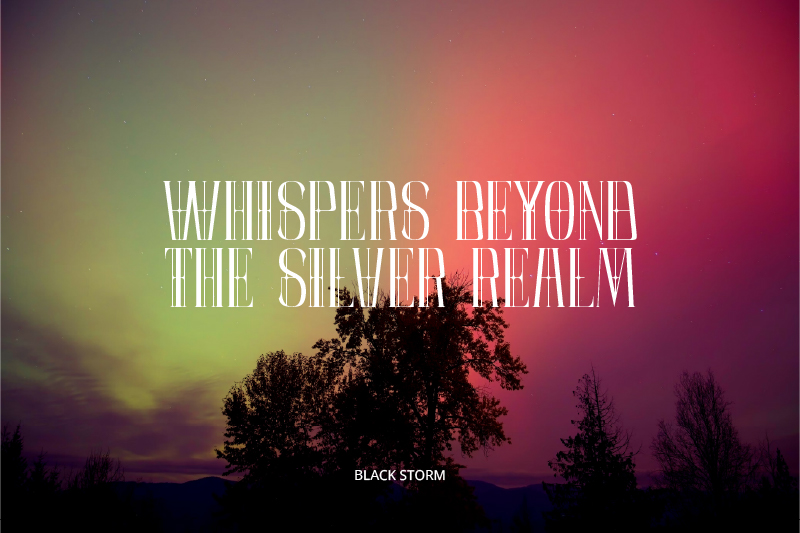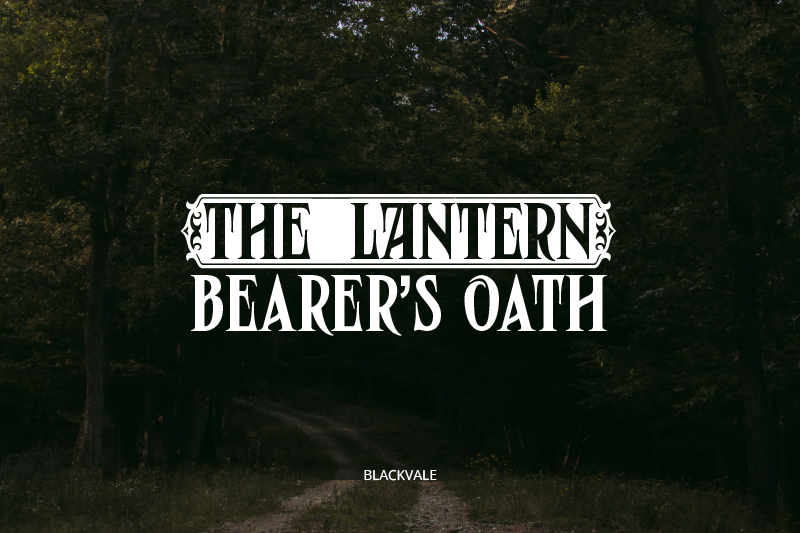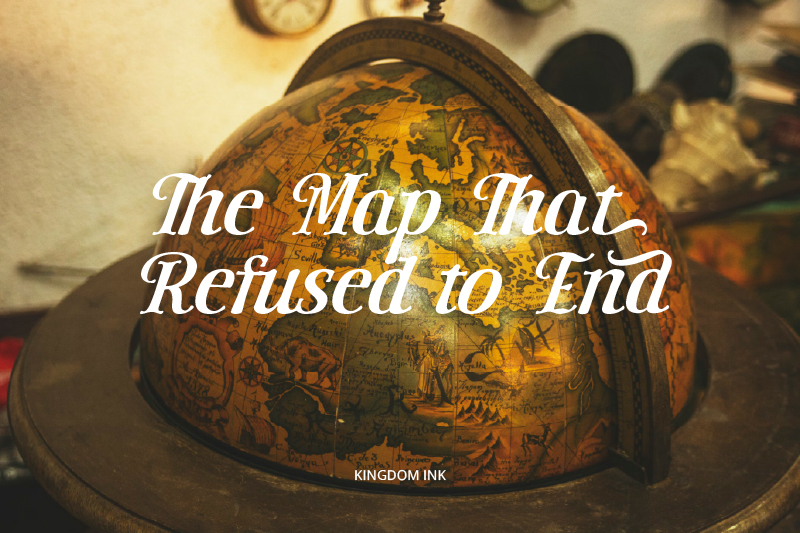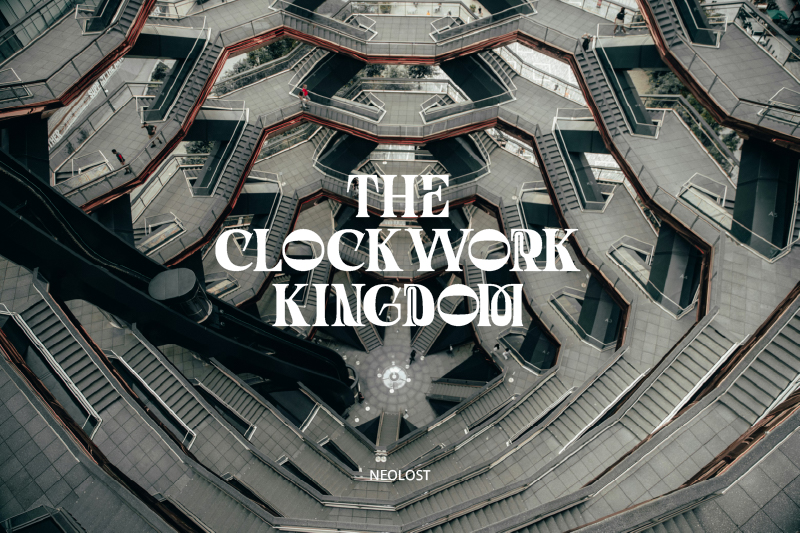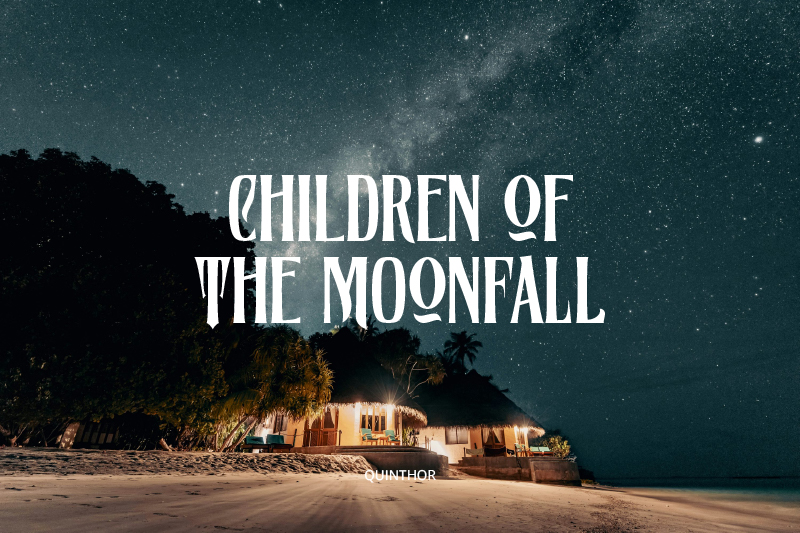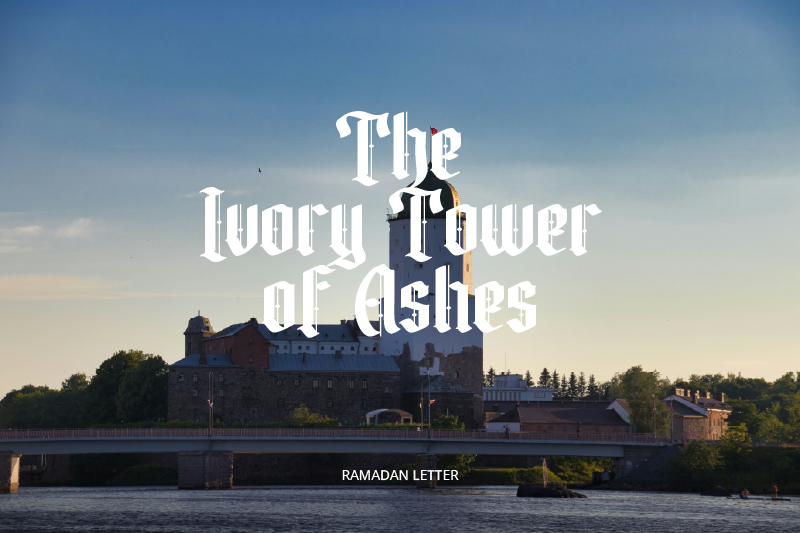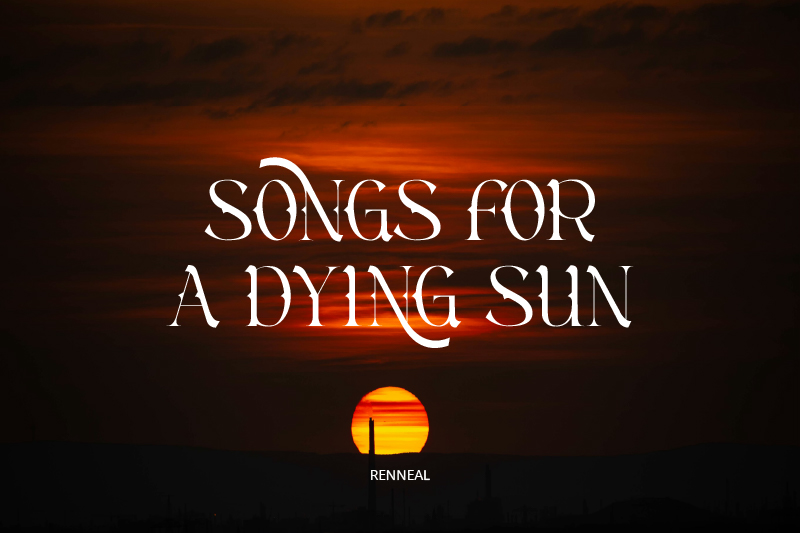
Fictional movies present an imaginative world that is built through story, characters, and visuals that support each other as a unified narrative. However, the power of a fictional world isn’t solely determined by the storyline and visual effects but also by the visual details that play a crucial role in establishing the atmosphere from the very beginning.
One of the visual details that has a significant role is typography. An ideal font for fictional movies should create a futuristic, mysterious, even epic fantasy impression in accordance with the genre. Moreover, in the context, the letter character functions as a visual communicative element that is decorative and helps to emphasize the identity of the fictional world presented to the audience.
With proper and directed typography, film titles, credit titles, and promotional materials can be presented consistently and aligned with the desired visual narration. As a result, understanding about the font for fictional movies becomes a crucial aspect for cinematographers and visual designers in creating a strong, wholesome, and recognizable cinematic experience.
Valgard is a display font that is designed to support fictional movies with fantasy and adventure genres. This font has a firm and balanced proportion letter character, allowing titles to present a spectacular impression. In addition, the letter structure of Valgard looks neat with sharp yet controlled corners, while its decorative details are appealing without compromising readability. In the context of movies or fictional series, Valgard works as a visual element that affirms the story’s identity, builds adventurous nuance, and supports the use of titles, posters, or promotional material consistently.
Mysterious and miraculous nuances in fictional movies are often depicted from the moment the title screen first appears. With its tall, slender letterforms and strong visual rhythm, Black Storm stands out as a captivating font for fictional movies. Black Storm’s uniqueness lies in its ability to combine dark, mysterious, and artistic elements within a consistent visual structure, effectively reinforcing the story’s identity. In the context of mystery and science fiction movies or series, this font serves as a visual element that emphasizes the mysterious atmosphere and strengthens the representation of the constructed imaginative world.
Behind unimaginable adventure stories, Quinthor presents as a title font of a true adventure work. Quinthor provides a mysterious yet adventurous nuance through the organic and characterful letterforms, making it a perfect font for fictional movies with an atmosphere that stirs the imagination.
This font features a unique letter structure with tall proportions and relaxed details. Moreover, the slightly curved letter tips create a dynamic and characteristic feel without diminishing its visual power, making Quinthor both expressive and comfortable to read.
Neolost provides a complex yet structured fictional world impression, making it relevant as a font for fictional movies. Its letterforms have a strong contrast in stroke weight, creating a dynamic and bold visual rhythm. Furthermore, the difference in pressure of each stroke reflects the atmosphere of an alternative civilization filled with mechanism, technology, and strategic adventure.
In addition, the precise details of the lines and the balanced proportions of the letters create a modern and characteristic look without feeling stiff. In the context of a fictional movie, Neolost can emphasize the story’s identity, build a visual atmosphere, and support the effective and consistent use of the film’s title.
From misty forest to forgotten legends, Silvershine seems to come to the rescue. Its tall, bold, and strongly structured letterforms convey a legendary and sacred feel within the visual context of fictional movies. The uniqueness of this font lies in the subtle ornamental details that blend harmoniously with the main letter structure, while its decorative accent enriches the visual character and emphasizes the classy, epic feel. As seen in the preview design above, Silvershine successfully strengthens the sense of mystery and mythology with a title that blends with a suspenseful atmosphere.
As an opening visual element that introduces the audience into a fictional world, East Gates is designed as an epic adventurous font for fictional movies. This font has a decorative serif with strong ornament details, supported by a firm letterform with high contrast. The detailed letterforms resemble ancient carvings or legendary inscriptions, reinforcing the imaginary world. Its uniqueness lies in its blend of classical aesthetics and modern visual power, serving as both the title typography and the film’s narrative element.
Many action movies build their appeal not only from the story but also through a proper typography. As the font for fictional movies, Miracle Fairway has a subtle letter character, balanced proportion, and smooth transition, presenting a magical yet calm impression. Its uniqueness lies in the combination of classic nuance and modern touch, allowing the font to build an imaginative atmosphere without overdoing it. Moreover, this font is effective for movie titles, film titles, opening scenes, and key visuals that emphasize the atmosphere of mystery, journey, and depth of the story.
In the cosmic fictional world as shown in the design above, the typography of “Blood of the Starborn Crown” plays a role as a marker of the story’s visual identity. Lavire is a font for fictional movies with light modern decorative letter characters, clean lines, and precise structures, thus presenting a cosmic, futuristic, and mysterious impression.
Additionally, the uniqueness of Lavire lies in the precise and consistent composition of decorative elements. It provides strong narrative value and supports space visuals harmoniously. Therefore, this font is perfect for elements that mark the story world, visual identity systems, and the materials to support the narration that emphasize the themes of power, destiny, and epic journeys in fictional stories.
The dark forest setting in “The Lantern Bearer’s Oath” serves as a narrative space for a story emphasizing oaths, hopes, and journeys. Blackvale features decorative serif characters with firm shapes, moderate contrast, and controlled ornamental details, creating a mysterious and legendary feel.
Furthermore, the font’s uniqueness lies in its ability to consistently create a dark and layered fantasy atmosphere. The font’s visual character reinforces the identity of the story’s world, particularly in narratives emphasizing oaths, journeys, moral conflicts, and mythological elements within the fantasy genre.
A story set in vast landscapes and shattered skies requires a visual language capable of conveying the power of its narrative. Vintoria is a font for fictional movies, featuring bold, robust, and expressive letterforms, along with a strong visual rhythm. Its structure conveys a sense of solidity, supporting the theme of courage. Moreover, the uniqueness of this font lies in its sculpture-like appearance or natural structure, harmonizing with open natural settings such as mountains, vast skies, and adventure fields.
Fictional characters can be emphasized through typography that aligns with the story’s theme, background, and conflict. Ramadan Letter is a suitable font for fictional movies that have a fantasy theme featuring ancient worlds, legends, or heroic journeys. Furthermore, its letter characters tend to combine gothic and Middle Eastern calligraphy styles, creating a majestic and wise feel. In addition, the contrast of thin and thick lines, along with sharp angular details enhances the dramatic and historical atmosphere, making the movie’s title feel in harmony with the narrative of adventure and epic conflict.
Vintrage provides a strong typography character with classic touch and a bold adventurous nuance, making it relevant as a font for fictional movies with fantasy and adventure genres. The bold, textured, and natural-like cuts create a vast world and epic adventure impression. In the context of fictional movies or series, Vintrage effectively strengthens the story’s identity, builds an atmosphere of exploration and emotion. Moreover, it also supports an adventurous narrative that roots in nature, myth, and the main character’s long journey.
Adventurous nuance, ancient maps, and journey into unknown territories are strongly reflected through the typography used in the titles of fictional stories. Kingdom Ink presents flowing letter characters with classic touch that resemble warm and narrative handwriting strokes, making it suitable as font for fictional movies that tell stories of adventure, world exploration, and imaginative legends.
Furthermore, its uniqueness lies in the balance between traditional nuances and good readability. That’s why it can build an atmosphere of curiosity and a long journey in the story world, both in the film title, opening title, and promotional materials consistently.
The warm, fading sunset in the preview creates a serene atmosphere, enhanced by the use of the Renneal font in the title. Renneal’s sleek, smooth curves letterforms, along with subtle decorative accents align with the melancholic and poetic feel of the visual. Moreover, the typography is not aggressive, but rather fluid and expressive, supporting the story’s atmosphere of a journey’s end, loss, or fading hope. As a result, the combination of the sunset and Renneal creates movie-like titles, suitable for fiction movies that emphasize emotion, inner journeys, and imaginative worlds.
Using Rickslord in the title not only functions as a text element but also as a strong story marking identity, like giving a sign that there will be a big conflict and a connected fate. The letterforms’ rhythm and structure build a majestic nuance like the medieval era that is full of tension, presenting conflict and difficult journeys in the story. Through a consistent visual approach, Rickslord can blend the natural elements, narration, and fantasy atmosphere in a unity that deepens the experience of the story from the first time.
Based on these recommendations of fonts for fictional movies, it demonstrates that typography has a crucial role in building a visual identity and story’s atmosphere. Every font presents its own characteristic, from mysterious to heroic nuance that functions to strengthen the narration, as well as supporting the creation of an imaginative world in movies or series.
Furthermore, for creators that are developing movies, series, or visual projects with fictional, fantasy, or adventure themes, the selection of fonts should be considered a strategic part of the creative process. So, what are you waiting for? Choose the best font for fictional movies and make them feel more alive, purposeful, and memorable for the audience.